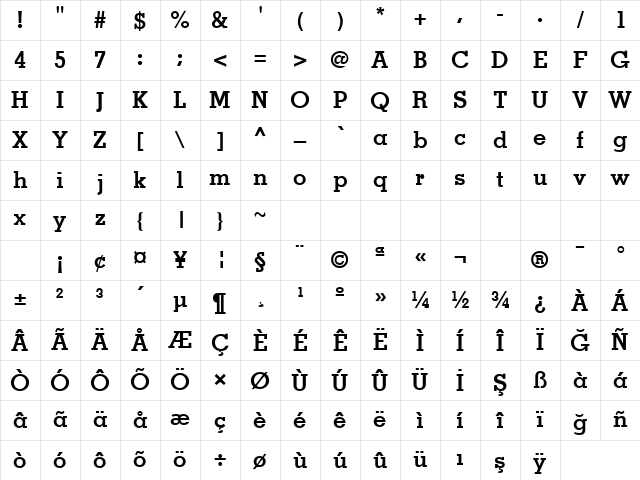
Louisville BOLD
Style: BOLD
Complete Louisville BOLD glyph index. Displaying only characters natively supported by Louisville BOLD font.
Design Context for Louisville
Louisville is a composed and adaptable typeface that performs quietly and consistently across a wide range of design contexts. Its bold stroke weight gives it real presence on the page.